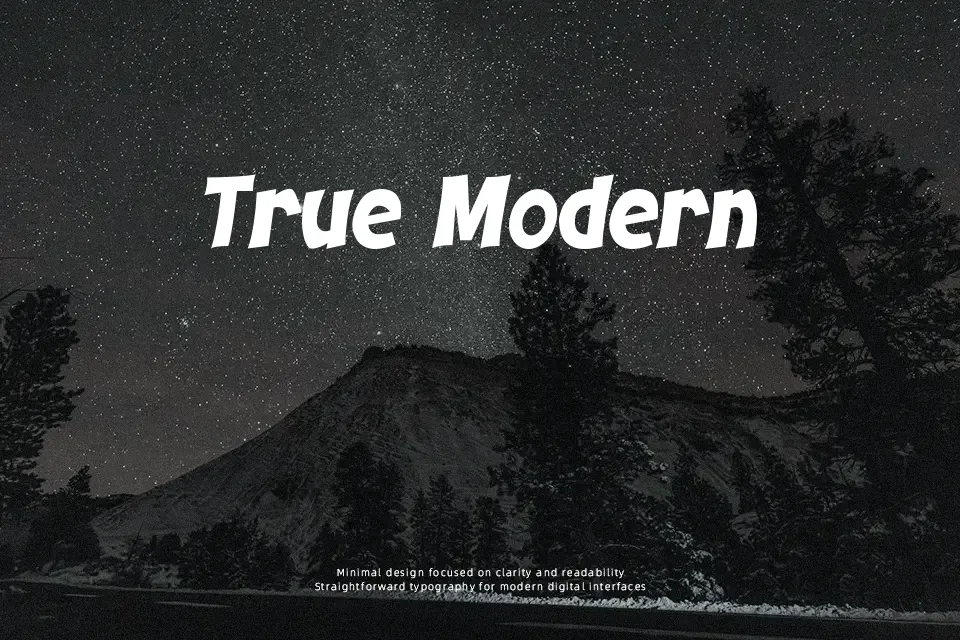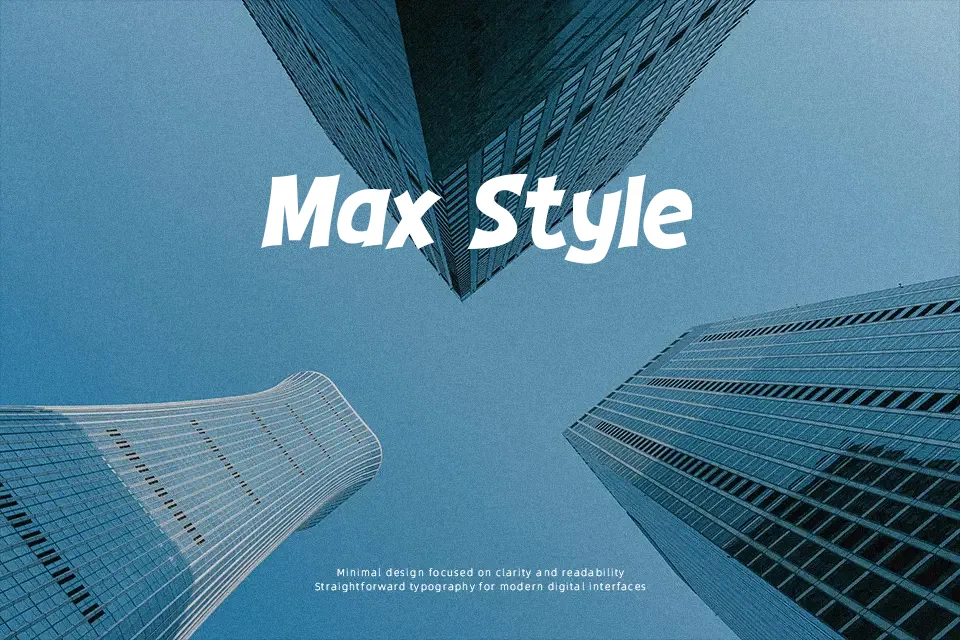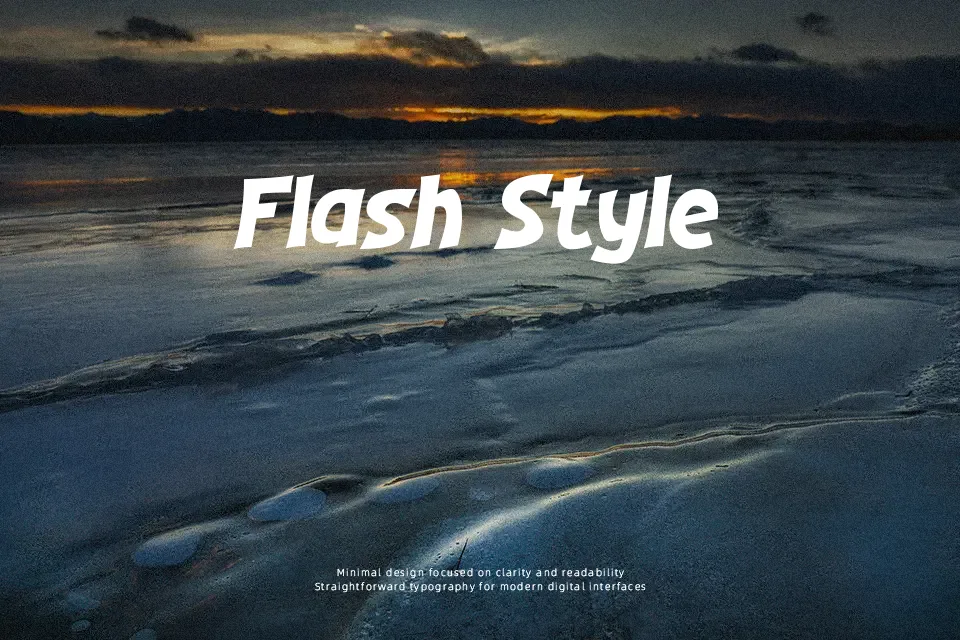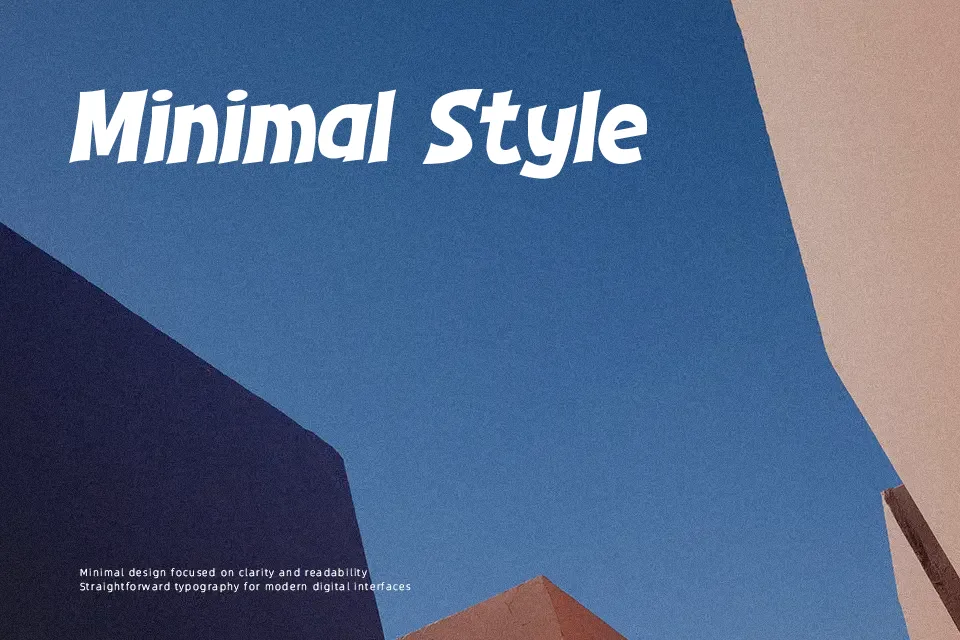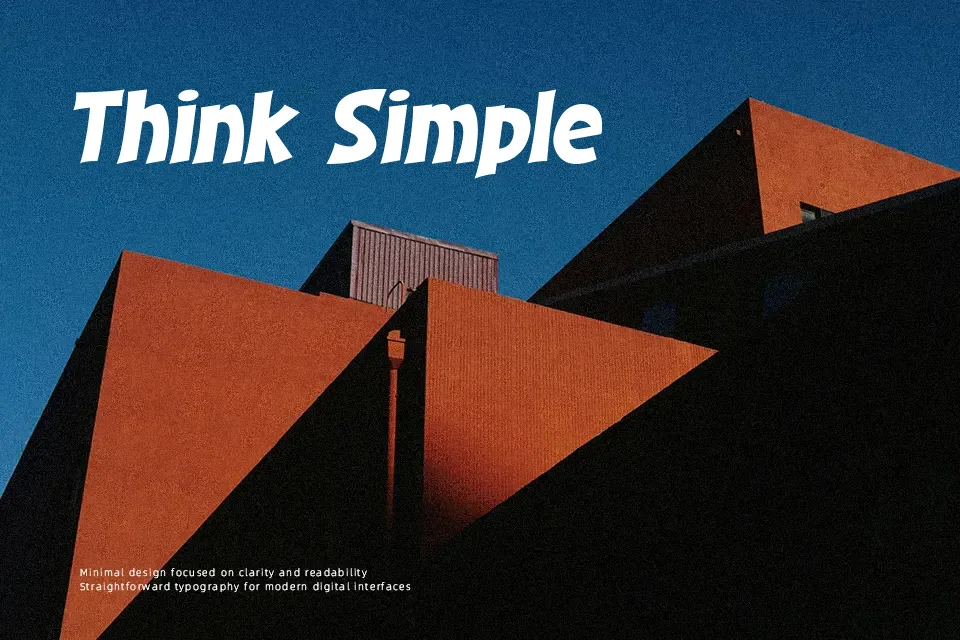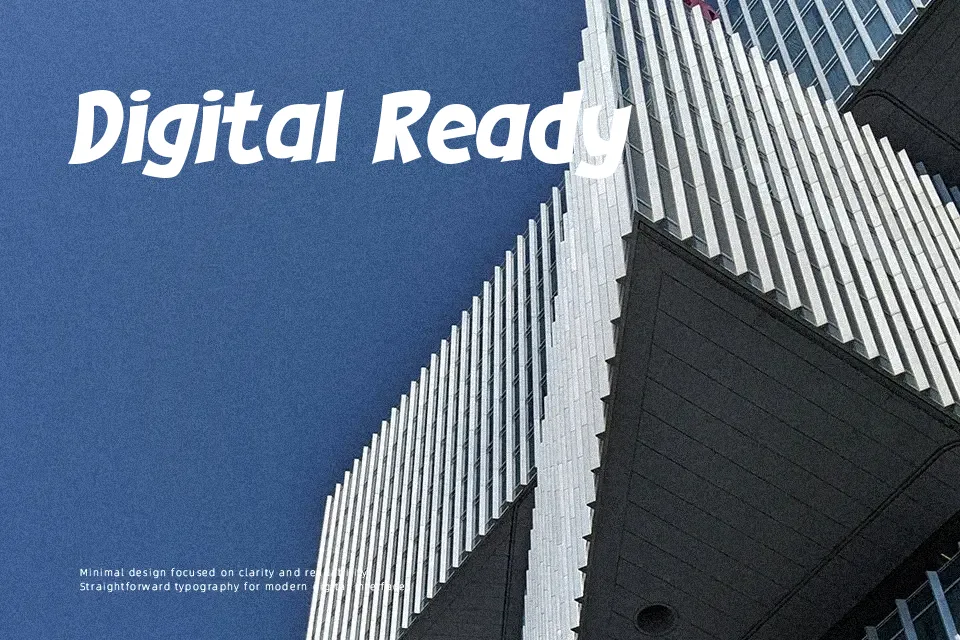
Komikz Font
Chunky strokes and slightly uneven curves give Komikz a lively, hand-drawn comic feel. The letters lean toward exaggerated proportions, with tight spacing that boosts visual impact in short phrases. It carries a casual, cartoon-like tone that fits speech bubbles, kids’ book covers, or playful social media graphics. However, the same bold personality becomes a drawback in longer text, where readability drops quickly. It works best when used sparingly as a headline or accent font; using it for body copy or formal branding can feel cluttered and unpolished.
comic speech bubbles
kids-themed posters
playful social media graphics
cartoon-style titles
corporate presentations
formal branding systems
minimalist layouts
Perfect for headline, kids, and poster, with a creative and cartoon style.